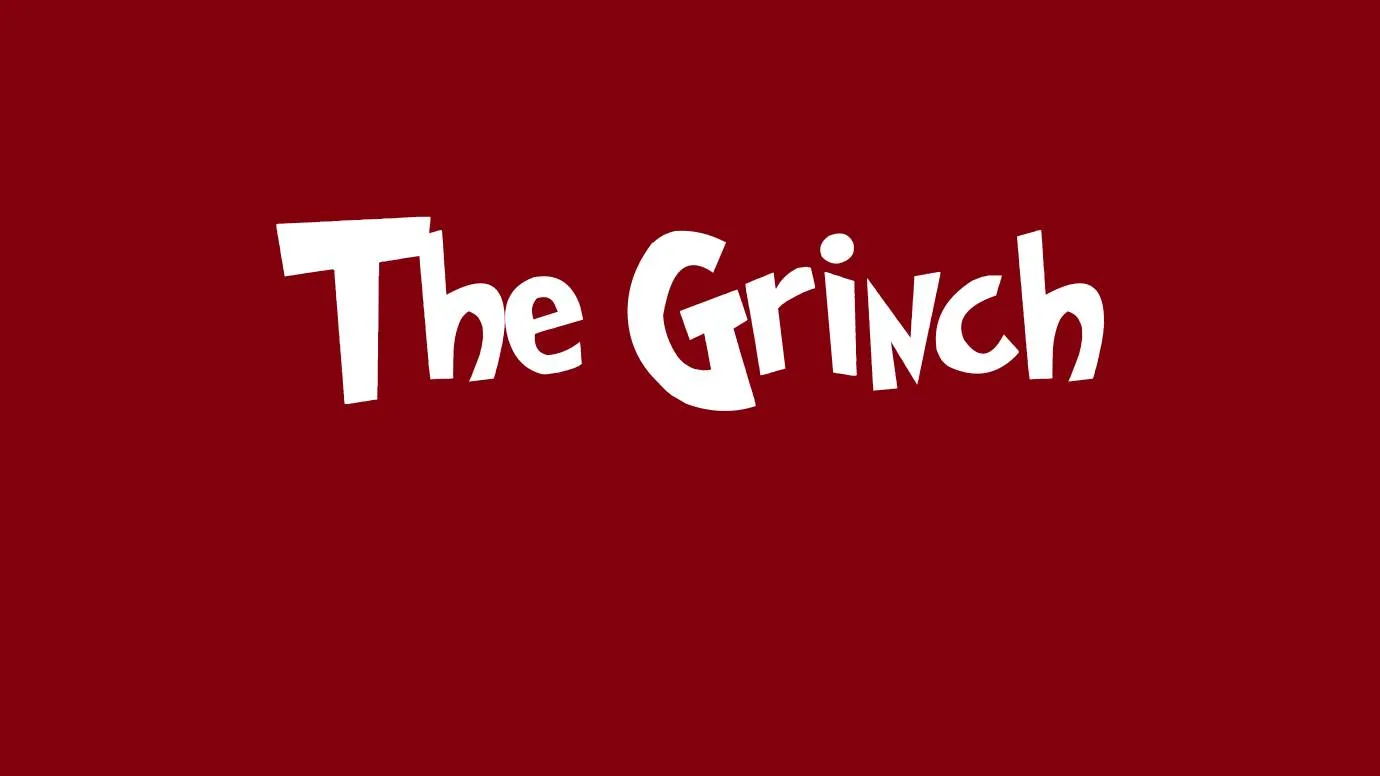
Grinch Font Family is a amazing fancy typeface that was designed by Sharkshock. The look of this typeface is very interesting and unique. You can use it for making all personal and commercial projects by using this font.
NameThe Grinch Font
DesignerSharkshock